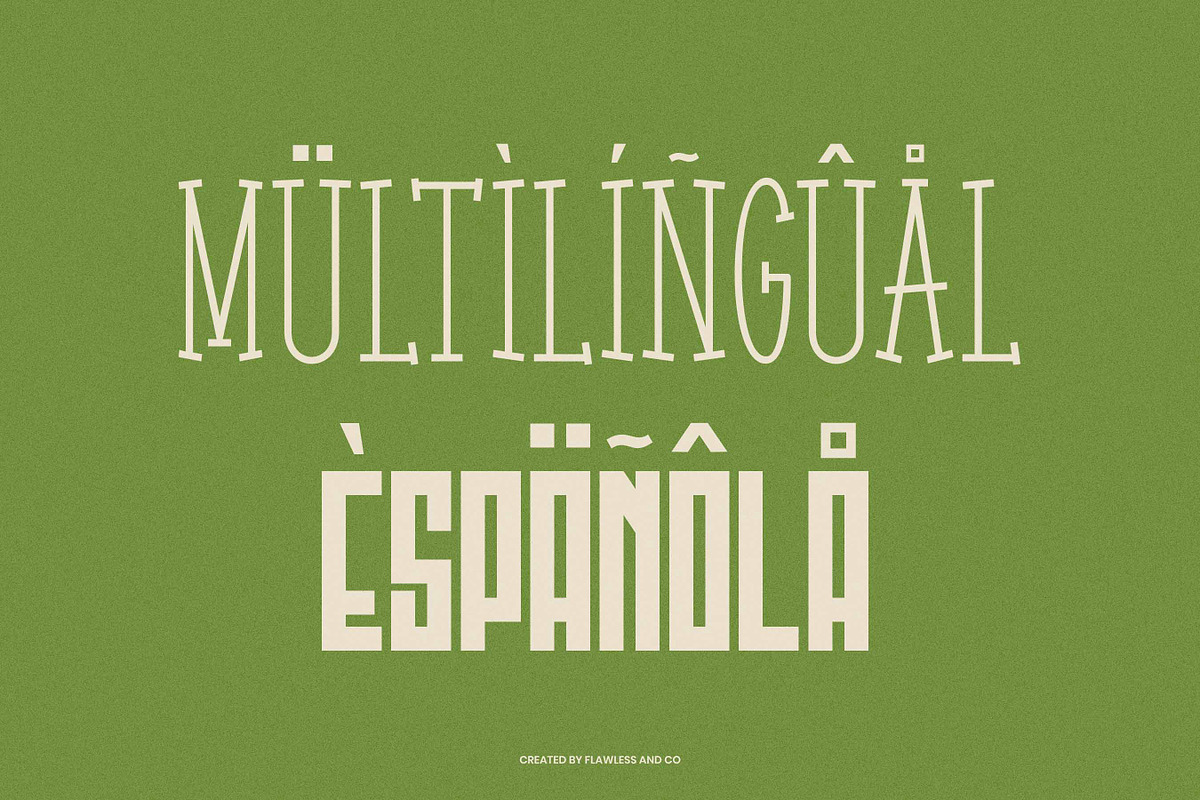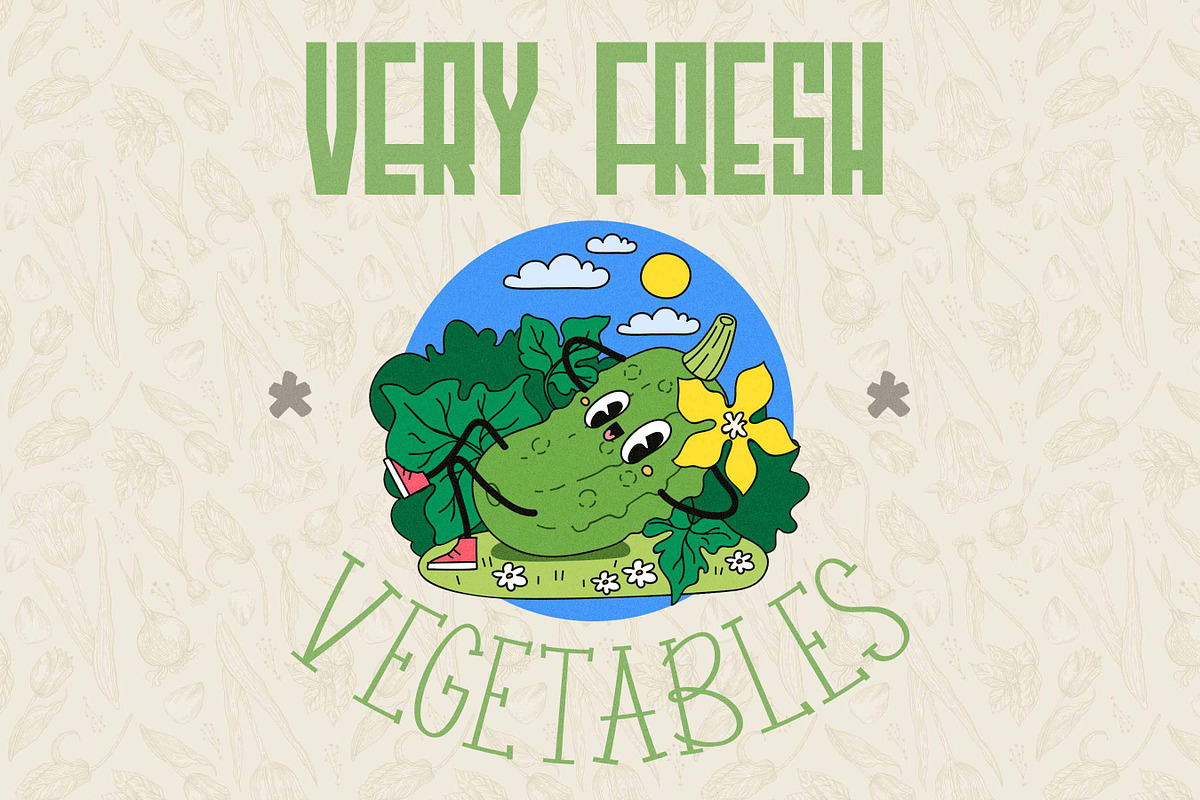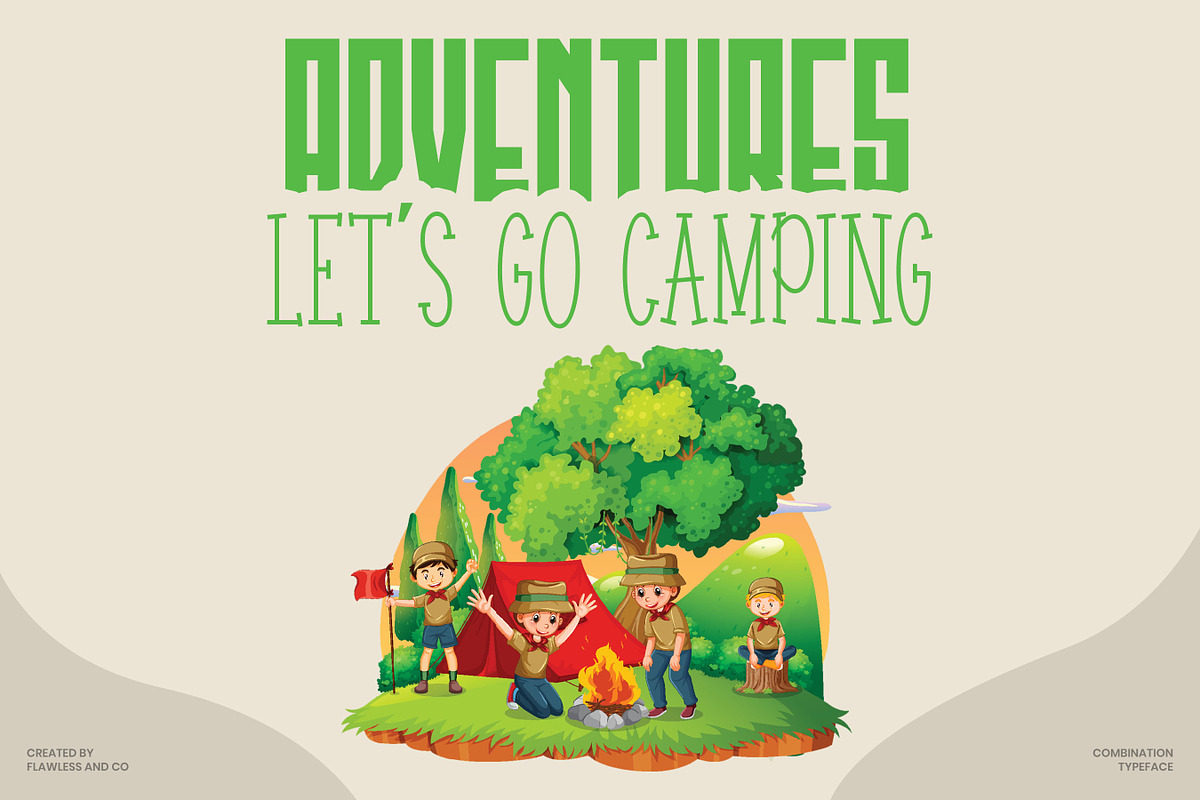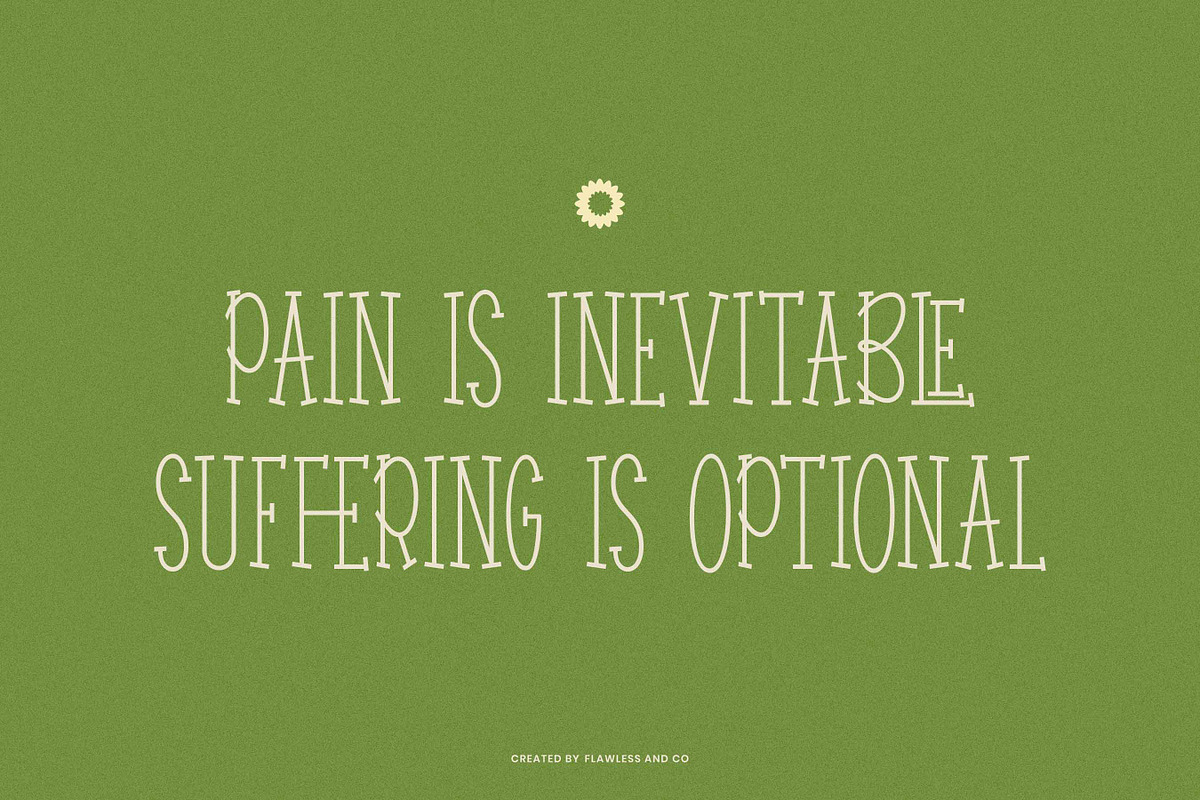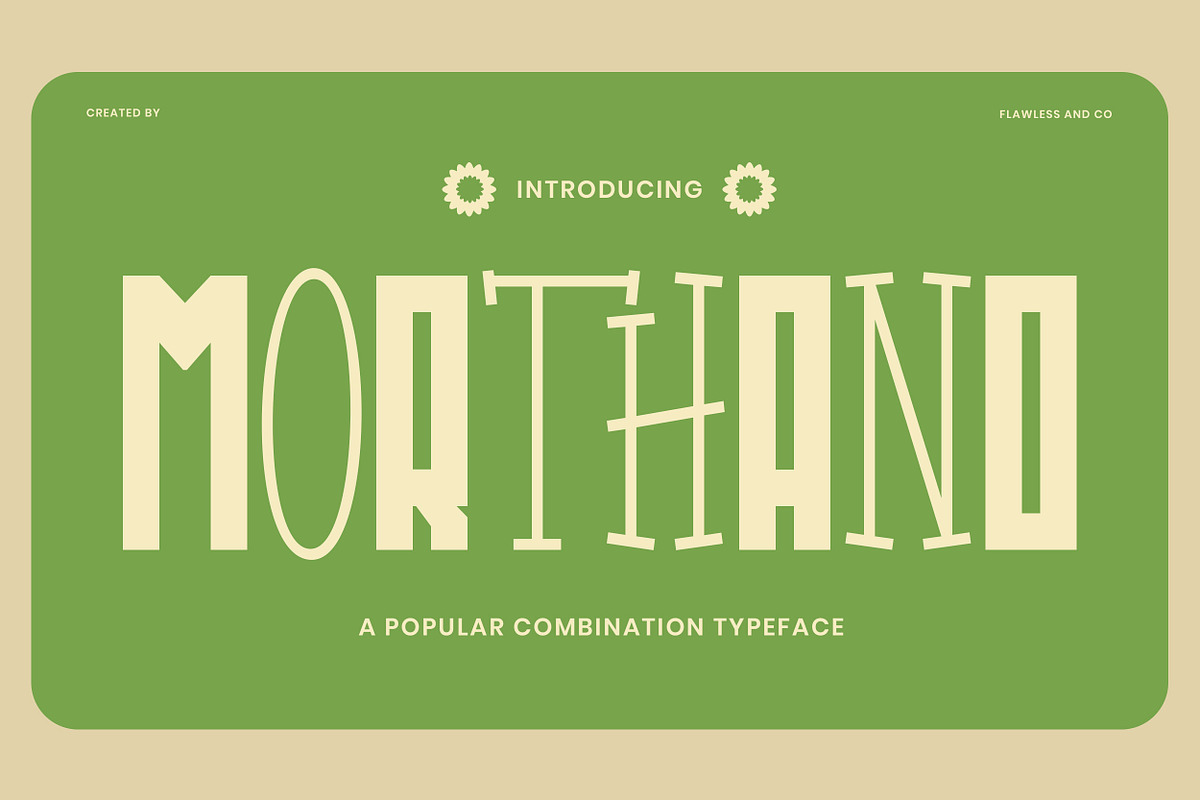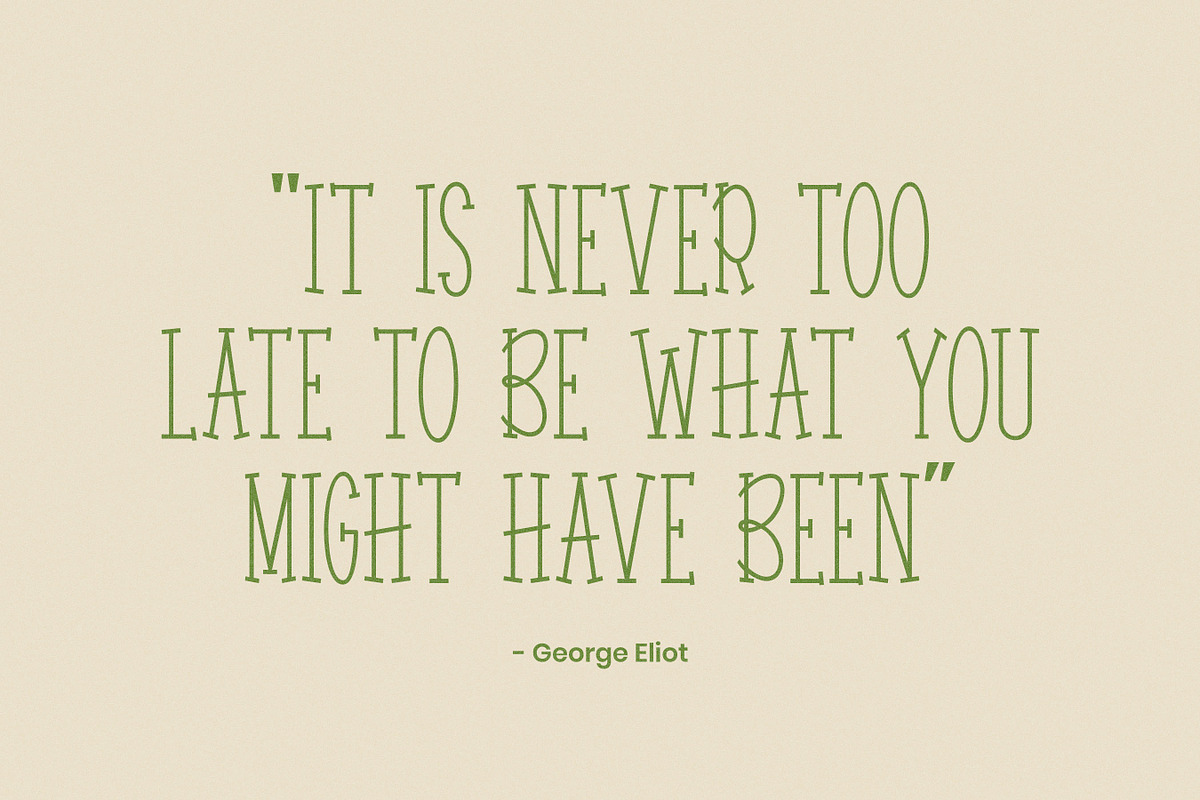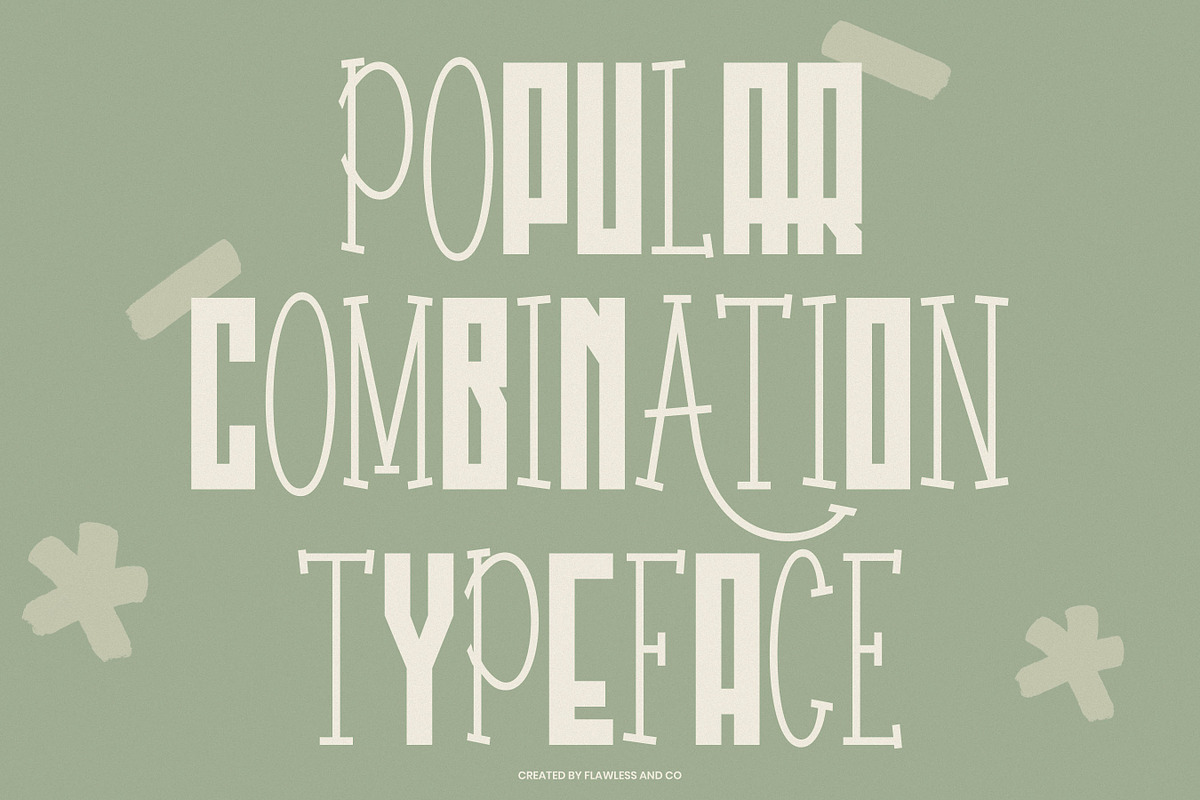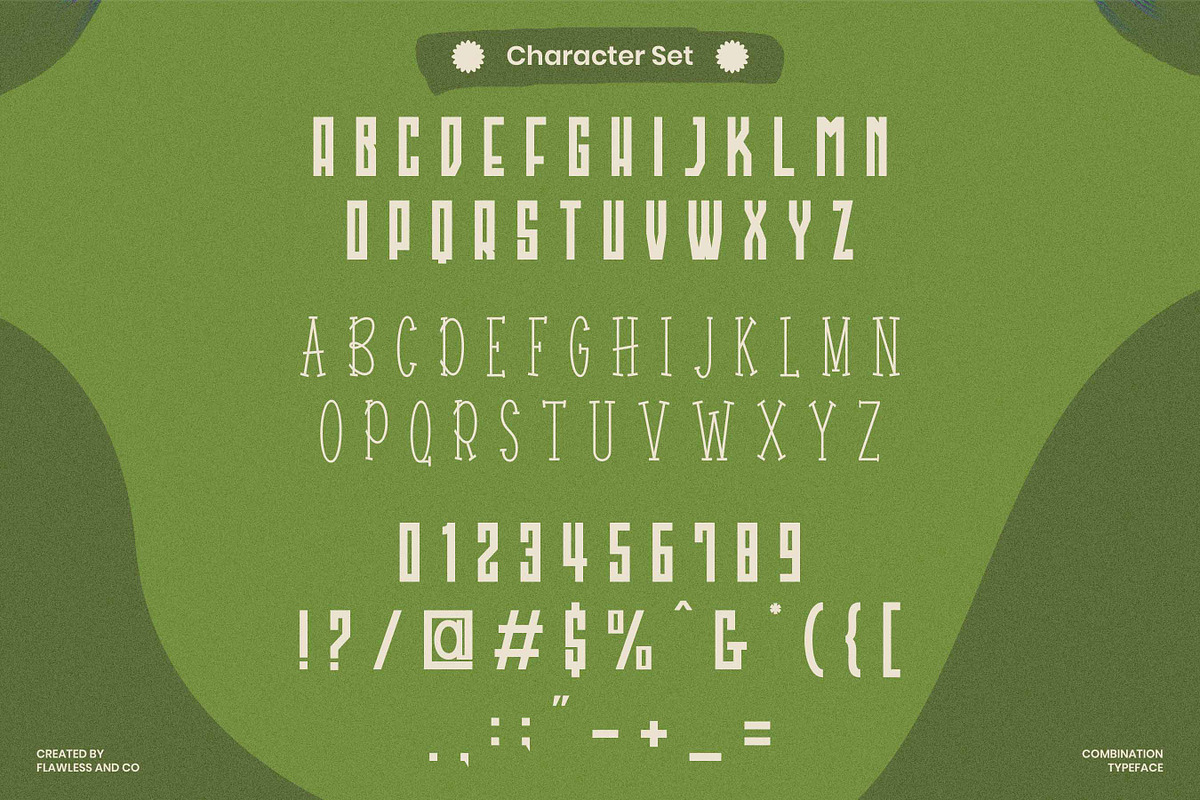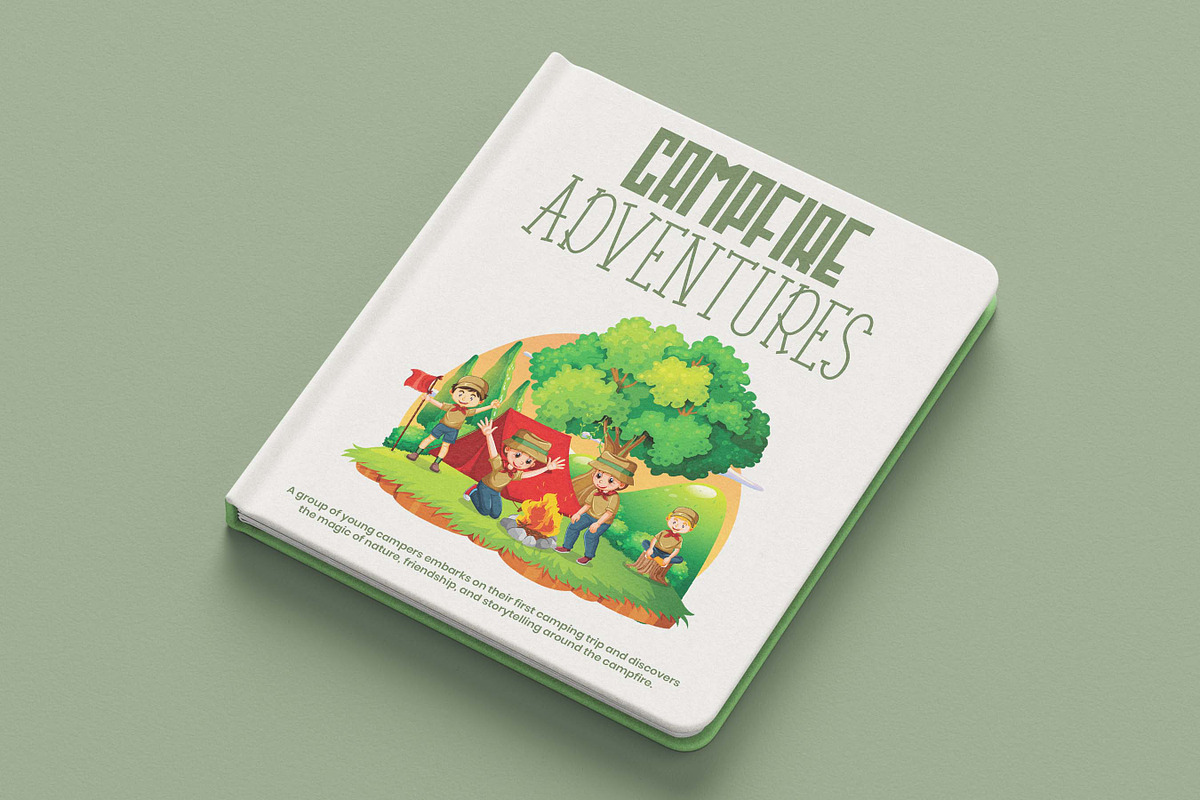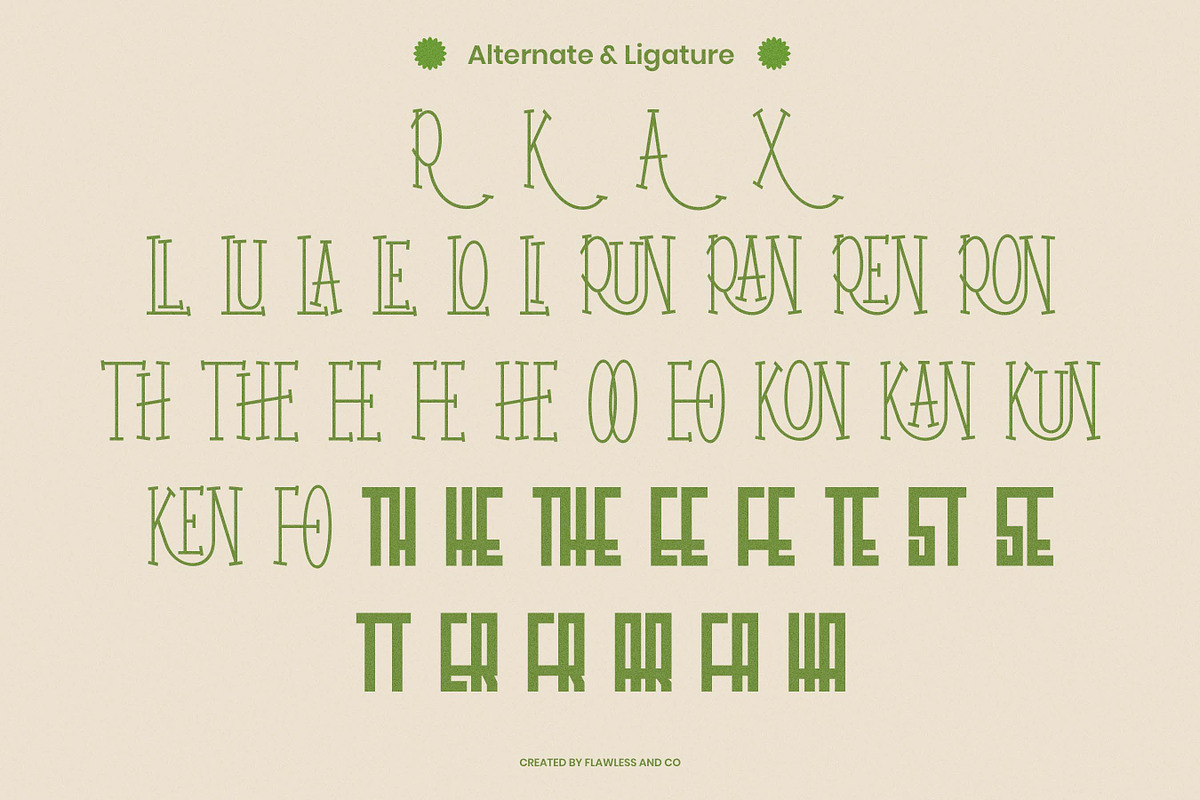
Morthano - Playfull Combination
Morthano – Playful Combination Font. Morthano is a playful combination font that brings together a lively spirit with modern versatility. Designed to capture attention with its bold forms and charming personality, Morthano blends fun, creativity, and style into one seamless design.Perfect for branding, packaging, posters, social media graphics, children's projects, and anything that calls for a friendly, upbeat tone, Morthano adds instant energy to any visual presentation. Its dynamic mix of styles creates a vibrant rhythm across layouts, making your designs feel fresh, engaging, and full of character.
Each letter is thoughtfully crafted to maintain readability while delivering a touch of whimsy, ensuring your message remains clear yet full of charm. Whether used for logos, headlines, or product designs, Morthano invites creativity and joyful expression into every project.
- Uppercase & Lowercase Letters
Use Morthano to infuse your work with a sense of playfulness and creativity that leaves a lasting impression.
Who Should Use Morthano?
Morthano is perfect for designers, brand creators, illustrators, and creative entrepreneurs who want to bring a playful yet professional touch to their projects. Whether you’re designing for children's brands, lively event promotions, lifestyle products, or bold, fun-loving campaigns, Morthano offers the perfect balance of creativity and clarity. It’s ideal for anyone looking to inject charm, friendliness, and energetic personality into their visual storytelling.
A Must-Have Font for Childern Book and Creative Designers
Morthano is a delightful and versatile typeface that every children's book author, illustrator, and creative designer needs in their toolkit. With its playful curves, friendly letterforms, and vibrant energy, Morthano instantly captures the imagination and brings stories, packaging, posters, and creative projects to life. It’s the perfect choice for turning ordinary designs into heartwarming, colorful, and memorable creations.
Why Choose Morthano for Your Project?
Morthano brings the perfect mix of playfulness and charm to any design. Its dynamic combination of fonts creates eye-catching layouts that feel lively, friendly, and full of character. Whether you're designing for children's books, playful branding, product packaging, invitations, or vibrant social media posts, Morthano adds a joyful and professional touch. The balanced pairing of expressive and clean styles makes it easy to craft compositions that feel both fun and polished — helping your projects truly stand out.